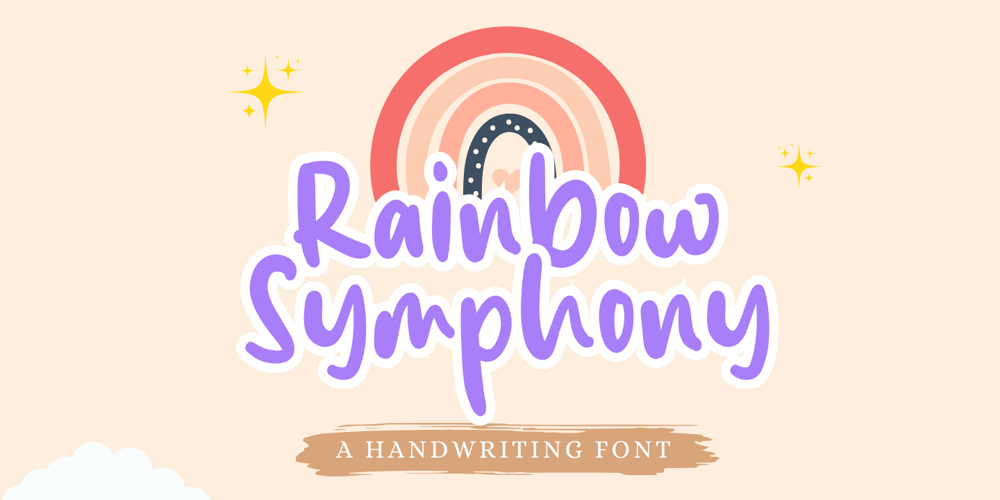
Rainbow Symphony Font Family was designed by Hasna Viola and published by Violatype. Rainbow Symphony contains 1 styles and family package options. Introducing “Rainbow Symphony” is a cute and unique type of handwritten font, made with hand strokes to produce a unique and cute font shape, this font style is thick and thin so it adds a natural and aesthetic impression.This font is very suitable for design needs such as Branding, Logotype, Magazine, Quotes, Wedding Invitations, and many others, please try it yourself and perfect your design with the Rainbow Symphony font.If you have any questions, don’t hesitate to contact us.